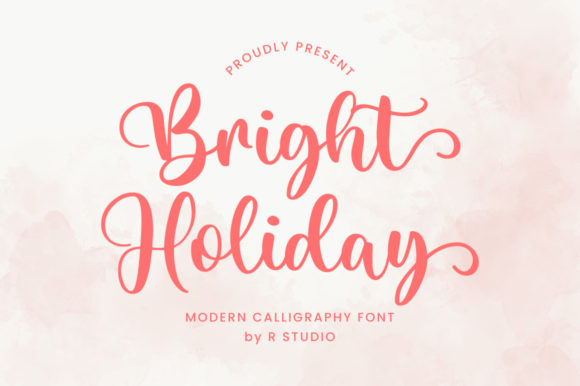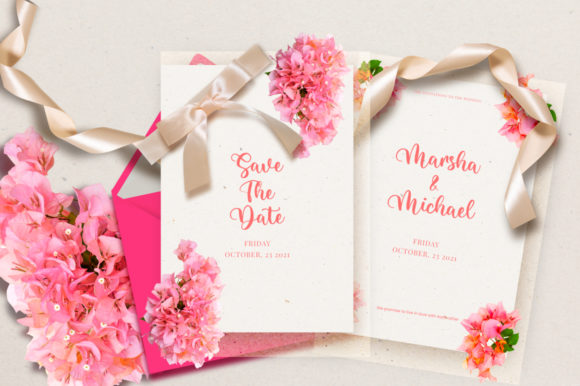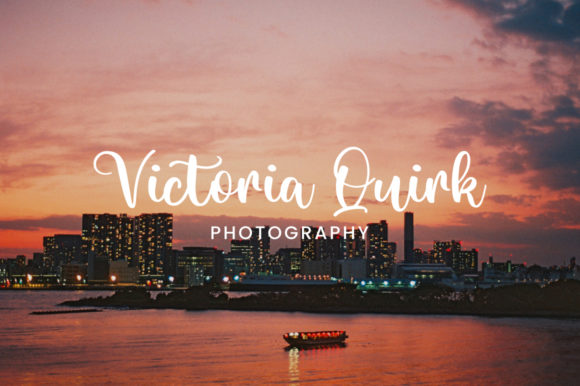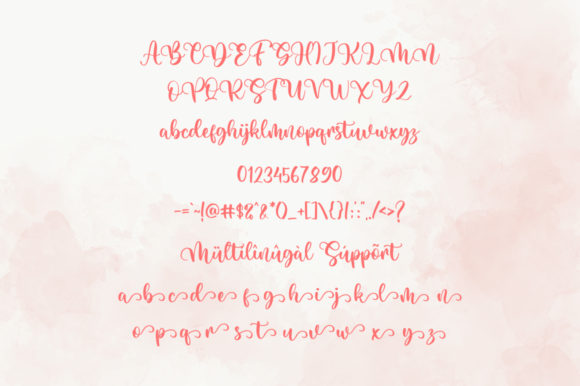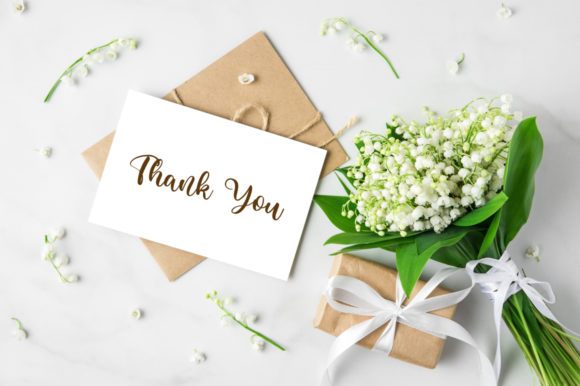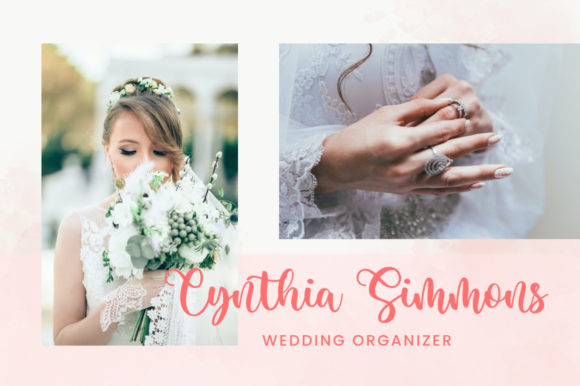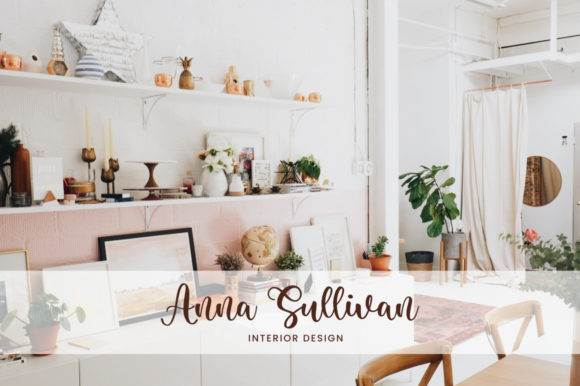
Bright Holiday Font
About Bright Holiday Font
Bright Holiday is a delightful and versatile handwritten font that exudes warmth, romance, and joy. With its thick lettering and charming style, this font is a fantastic choice for a wide range of creative projects, adding a touch of playfulness and elegance to each design.
The combination of its thick lettering and round, friendly appearance gives Bright Holiday font a unique and inviting character. Its warm and jolly nature makes it an excellent option for expressing positive emotions and creating a cheerful atmosphere in your designs. Whether you’re working on holiday-themed projects, greeting cards, invitations, or any other creative endeavor, Bright Holiday’s delightful aesthetic will help bring your ideas to life.
The font’s versatility allows you to explore various design possibilities and experiment with different styles. It adapts seamlessly to different contexts, making it suitable for festive occasions, celebrations, and projects that aim to convey happiness and delight. Its bold and distinct letterforms ensure that each project you undertake stands out with a vibrant and captivating appearance.
Bright Holiday’s thick lettering also provides a great opportunity for customization and creative exploration. You can experiment with different color combinations, layering techniques, and embellishments to enhance the visual impact of your designs. Whether you’re designing for print or digital media, the font’s thick strokes offer ample space for adding decorative elements and making your creations truly unique.
As with other fonts, the ability to access a variety of glyphs and swashes through PUA encoding further enhances the font’s versatility. You can use these additional characters to add flourishes, decorative touches, and personalized details that elevate your designs and make them even more engaging.
Incorporating Bright Holiday into your projects will infuse them with a sense of joy, vibrancy, and creativity. Its thick lettering and charming style make it a versatile tool for expressing positivity and capturing the essence of festive occasions. Whether you’re creating holiday-themed designs, party invitations, or any other joyful project, Bright Holiday will help you achieve captivating and visually appealing results.